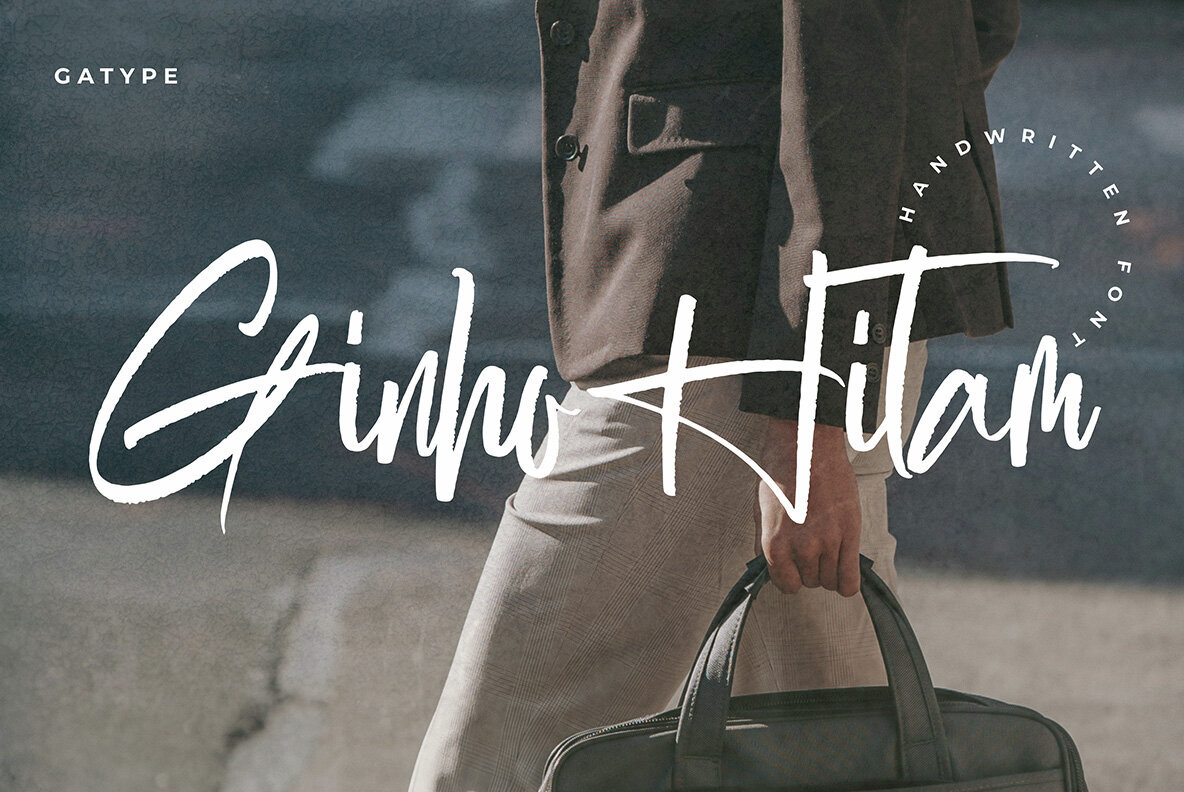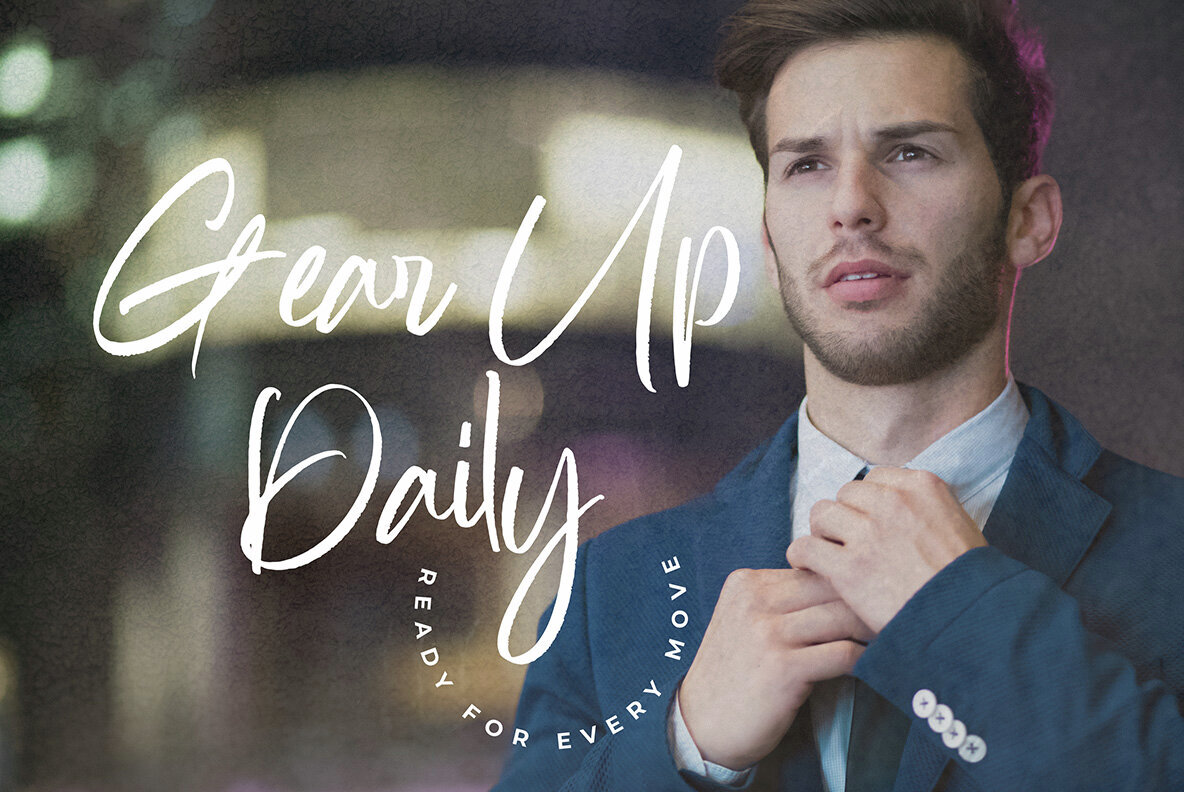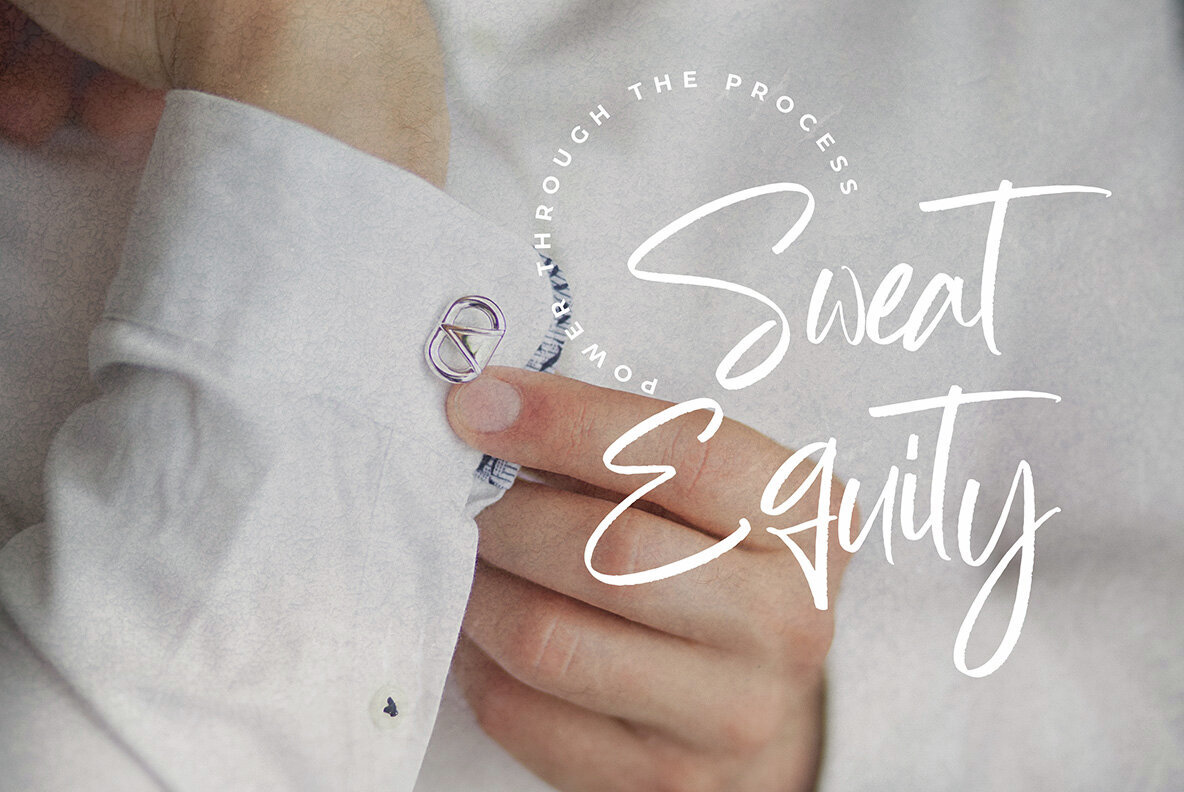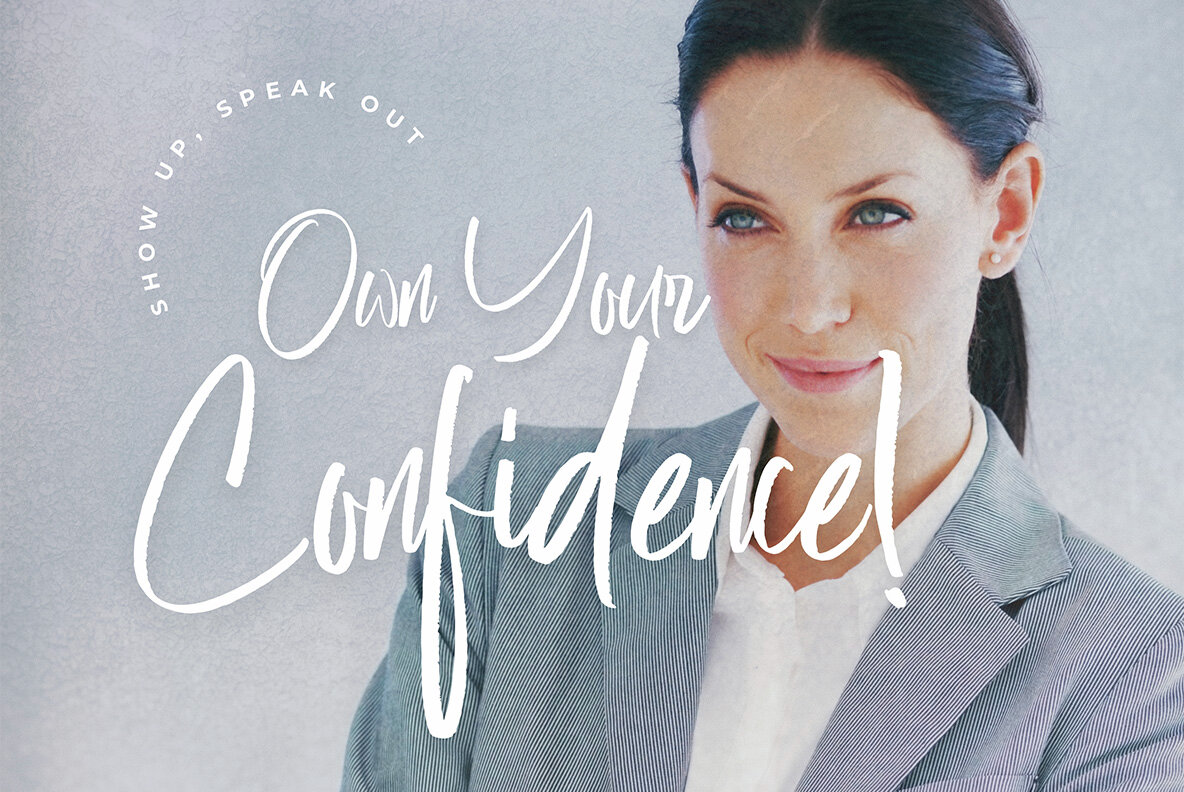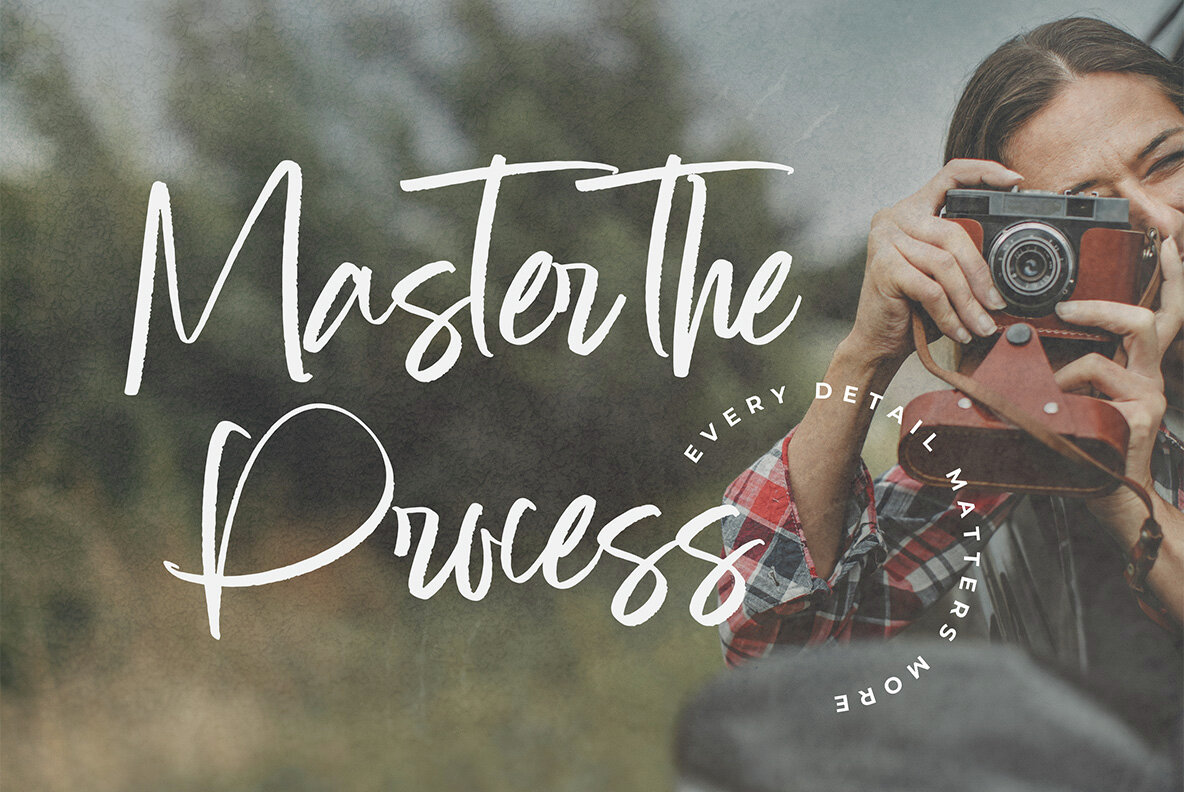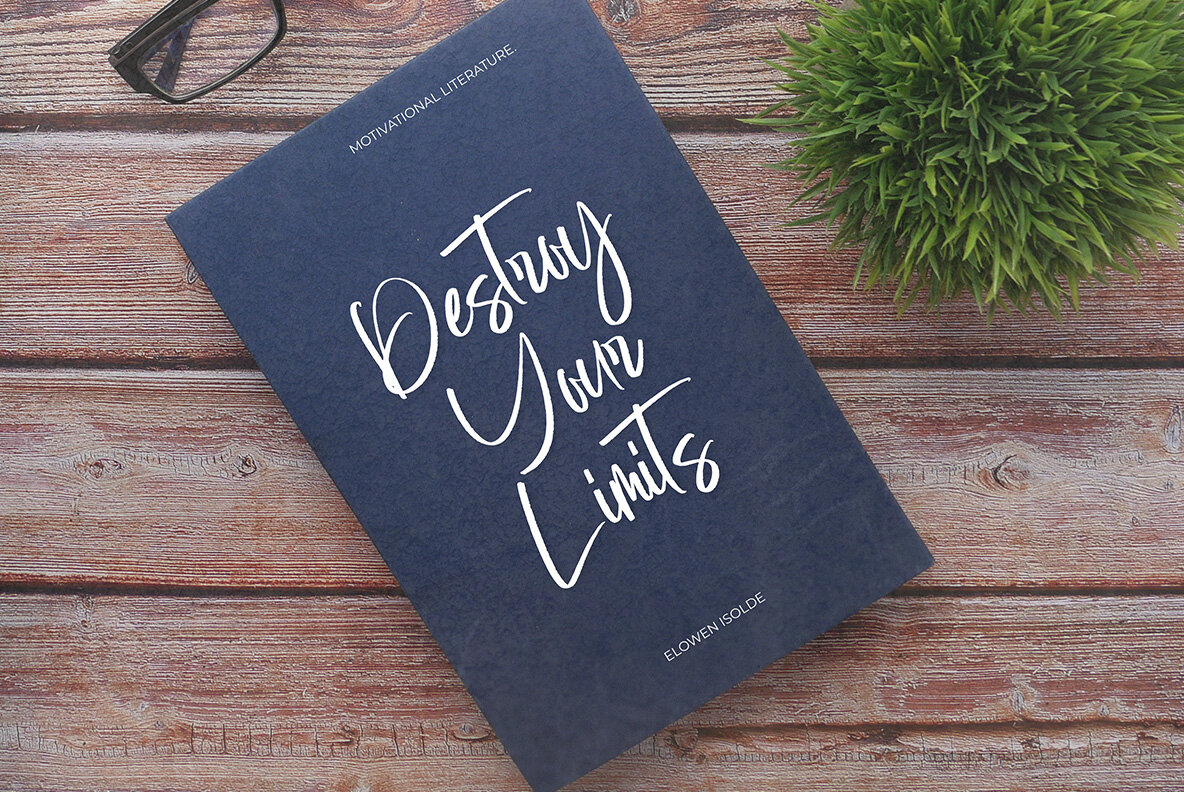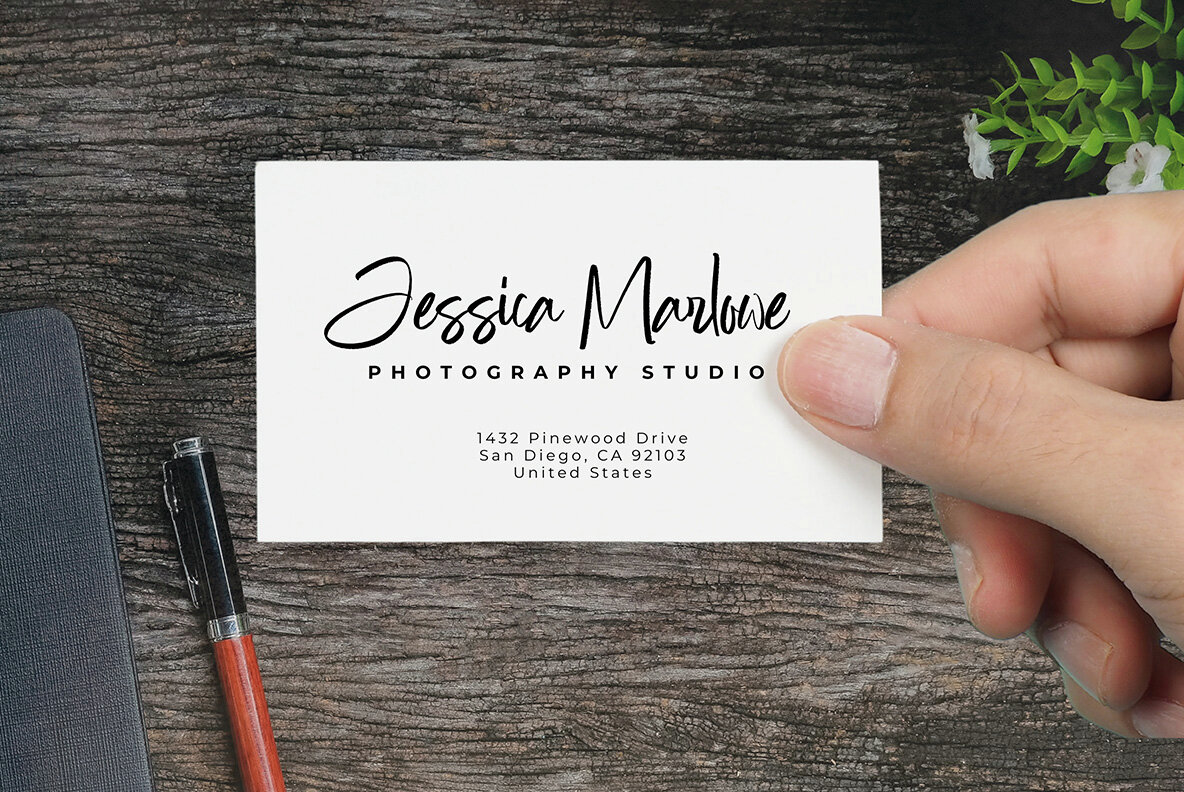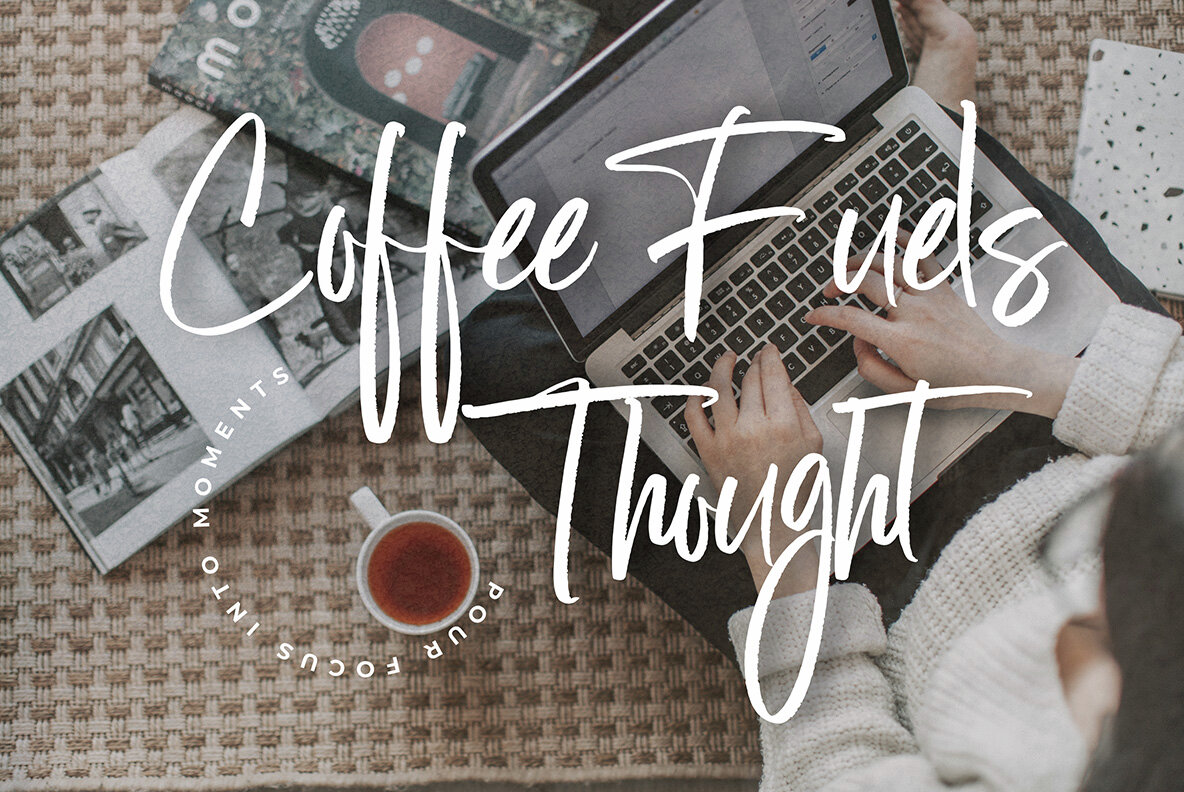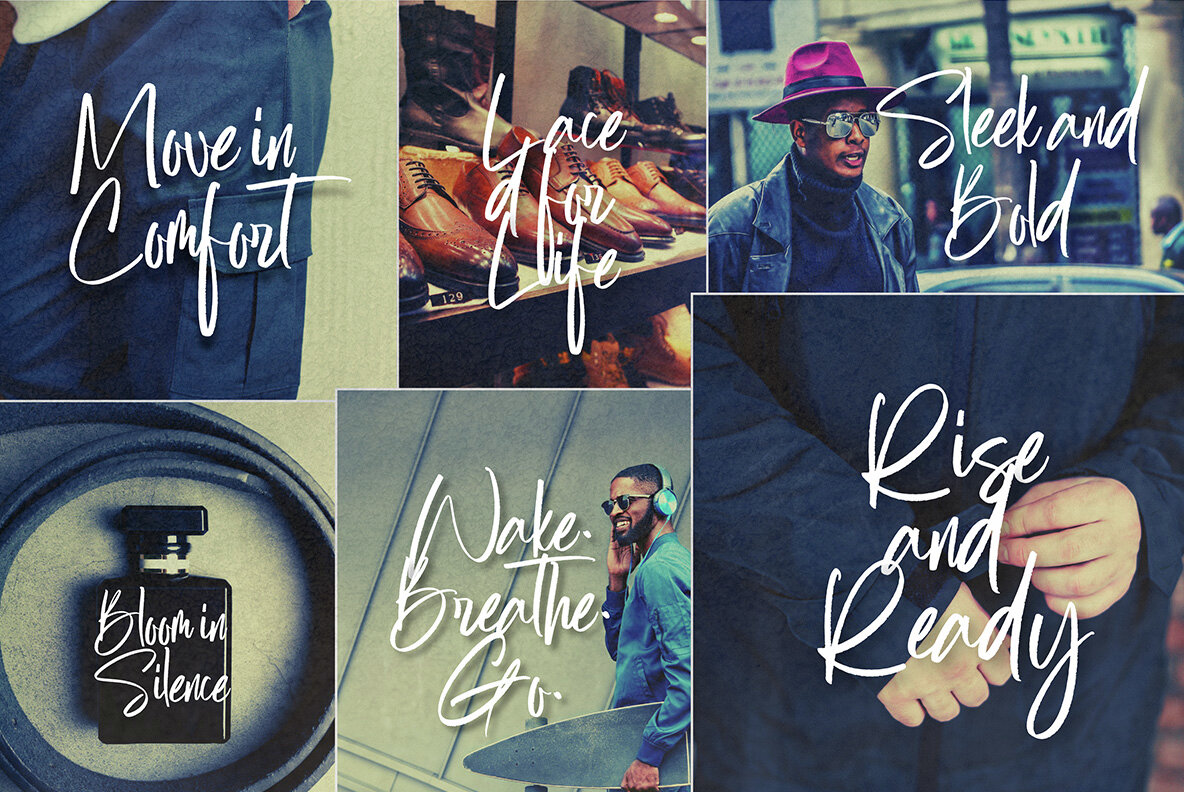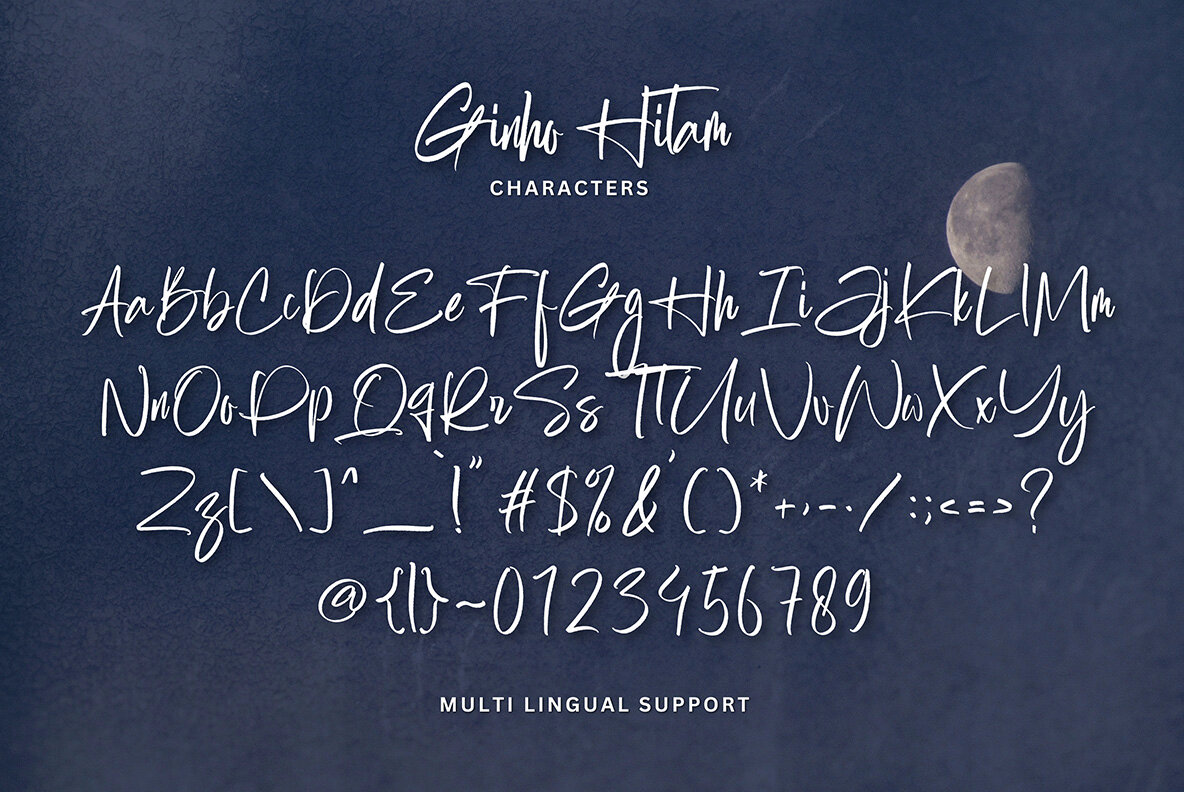
Ginho Hitam Font
Ginho Hitam captures a perfect balance of elegance and casual charm. Its modern handwritten script delivers graceful strokes combined with relaxed allure. Ideal for wedding stationery, logo designs, and lifestyle branding, this font infuses a personal touch that feels both intimate and sophisticated.Ginho Hitam: Handwritten Script with Elegance